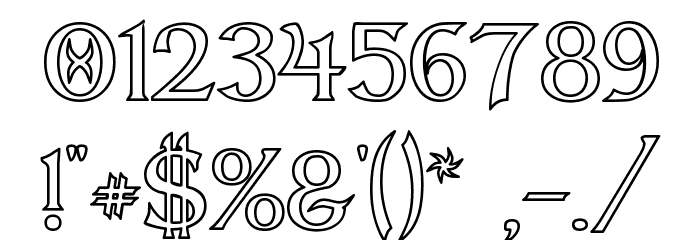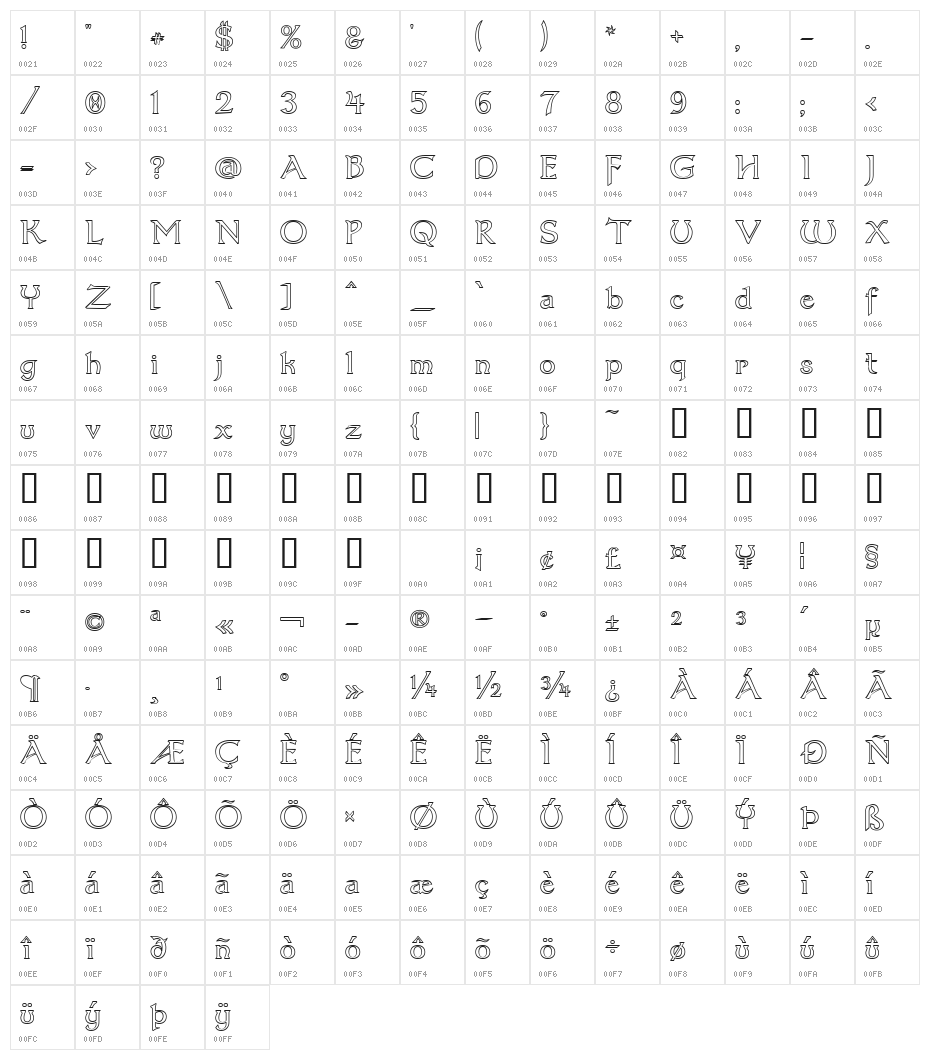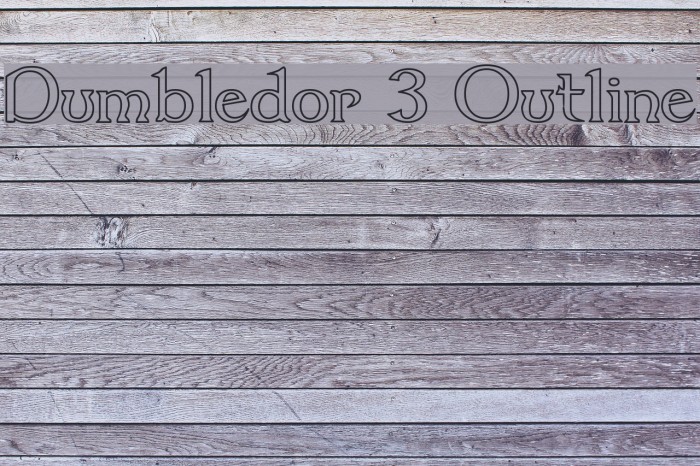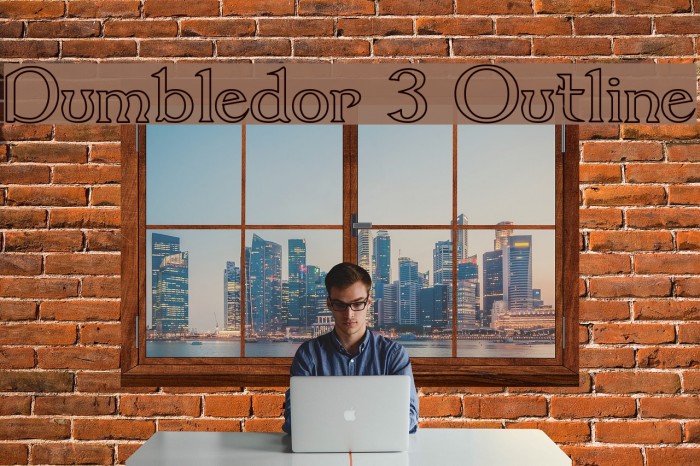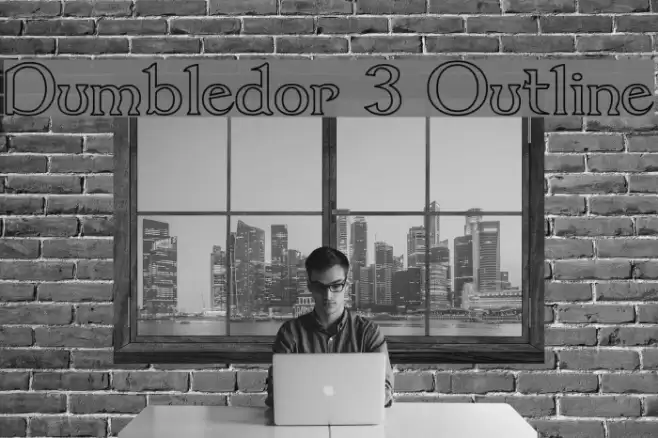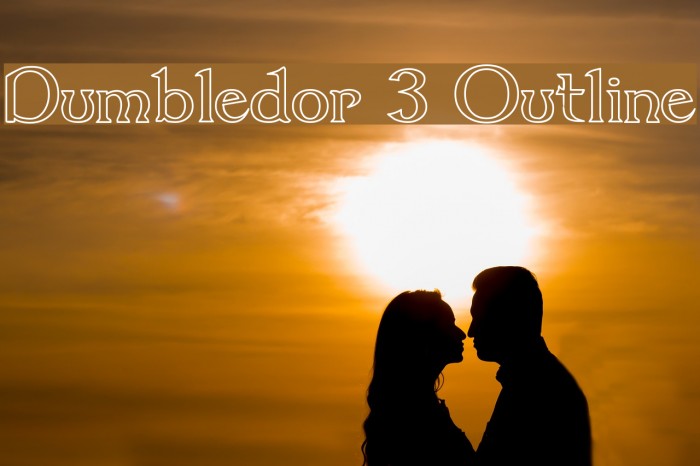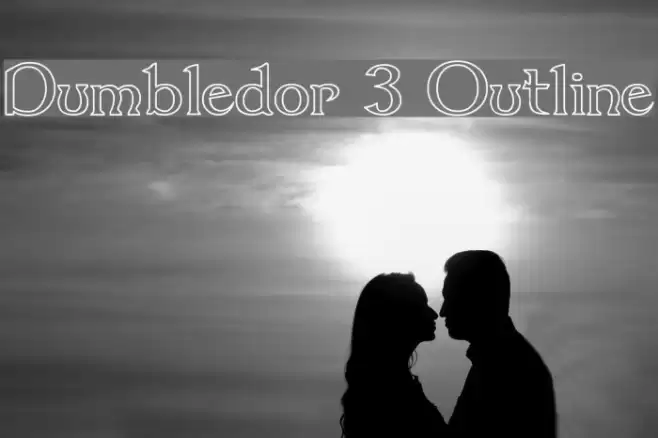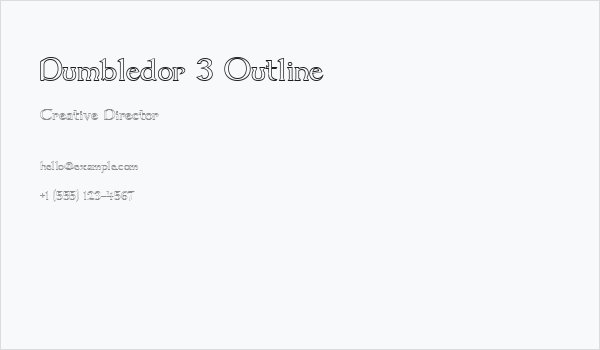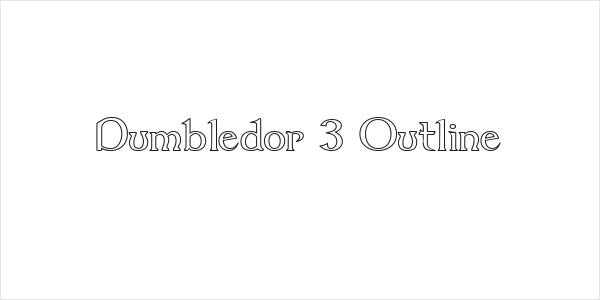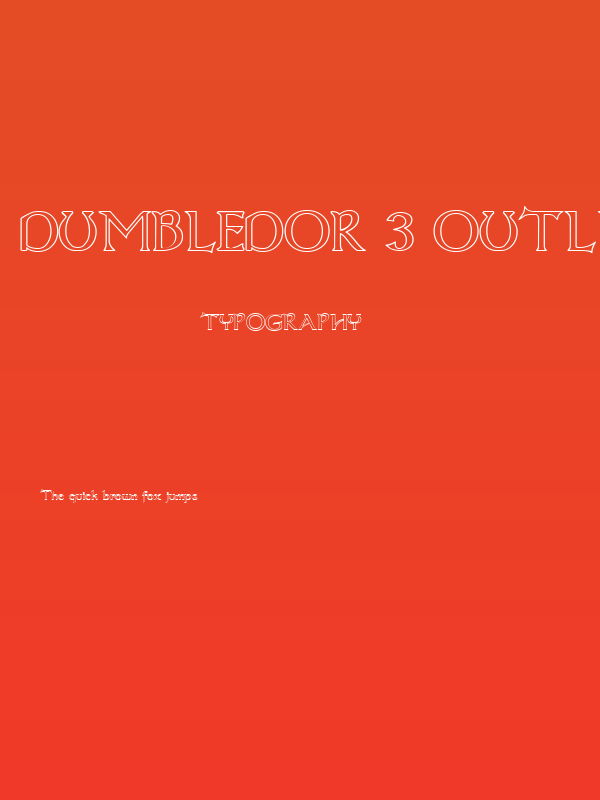
Dumbledor 3 Outline Font
Dumbledor 3 Outline Description
This font features a distinctive outline style with a medieval flair, characterized by sharp, angular serifs and a bold presence. The uppercase letters exhibit a strong, commanding appearance, while the lowercase letters maintain a consistent style with slightly softer curves. Numbers and special characters are designed to match the overall aesthetic, providing a cohesive look. The font's unique outline effect adds depth and dimension, making it ideal for eye-catching designs. Its intricate details and historical inspiration make it suitable for projects that require a touch of elegance and tradition.
| Proposed Projects | Ideal for fantasy-themed designs, book covers, posters, and branding that seeks a historical or magical touch. |